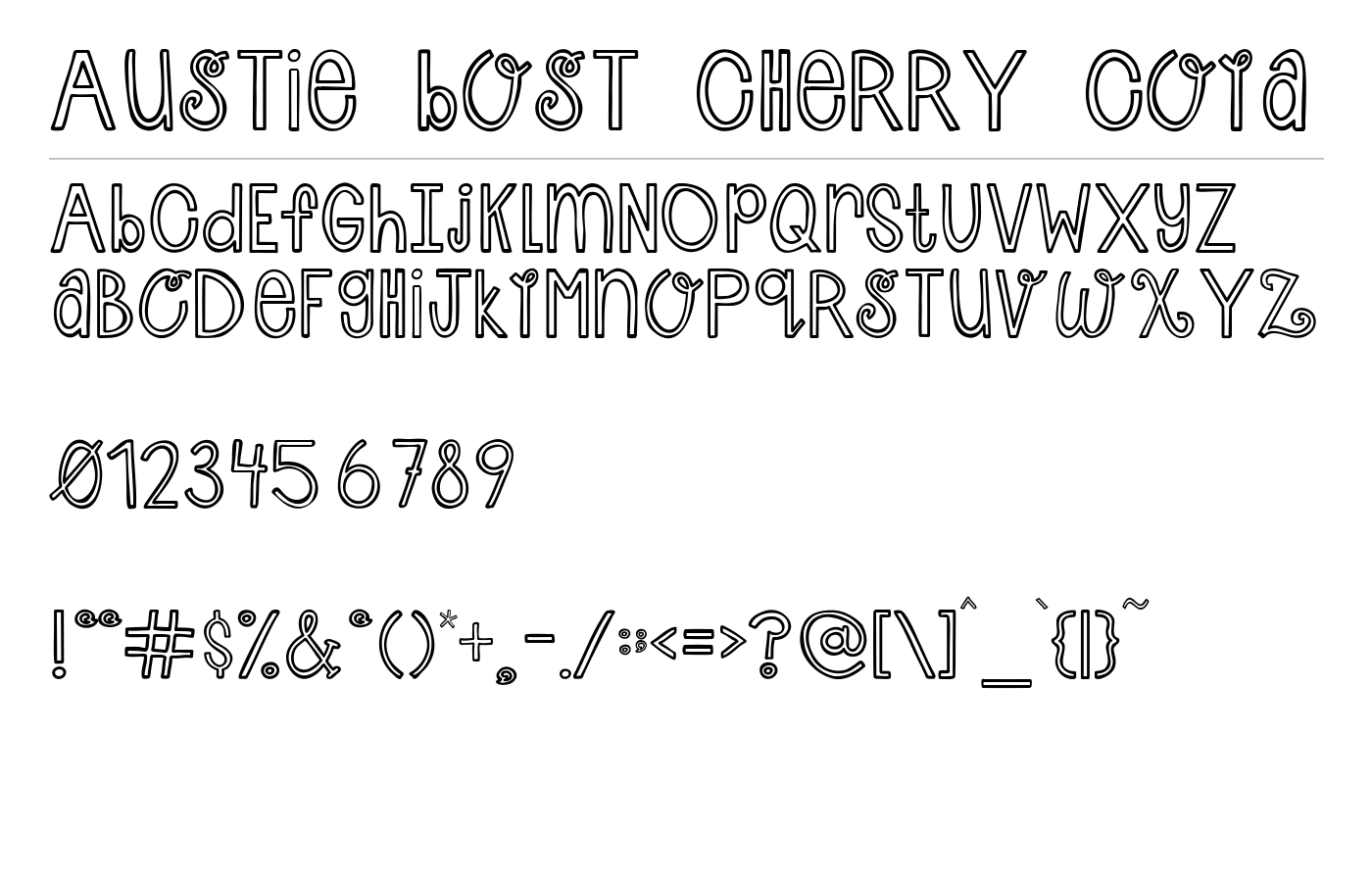
Austie Bost Cherry Cola is a playful and quirky sans serif font with a hand-drawn, outlined style that adds a fun and whimsical vibe. Its irregular shapes, unique letter curls, and casual feel make it perfect for creative projects, children’s designs, or anything needing a lighthearted, friendly touch. This font works well for logos, packaging, and headlines where personality and charm are key.
Austie Bost Cherry Cola Font
About Austie Bost Cherry Cola Font
| Font family | Austie Bost Cherry Cola Font |